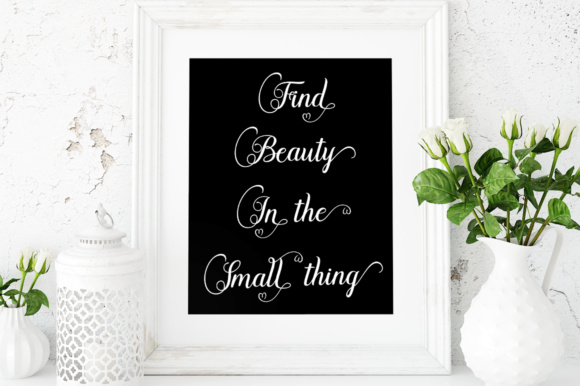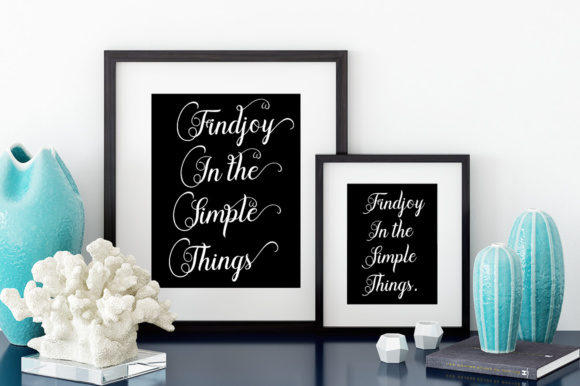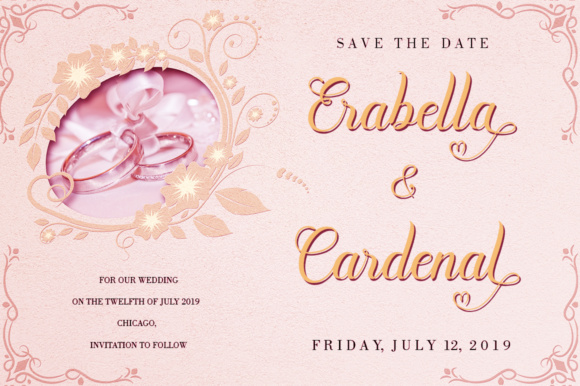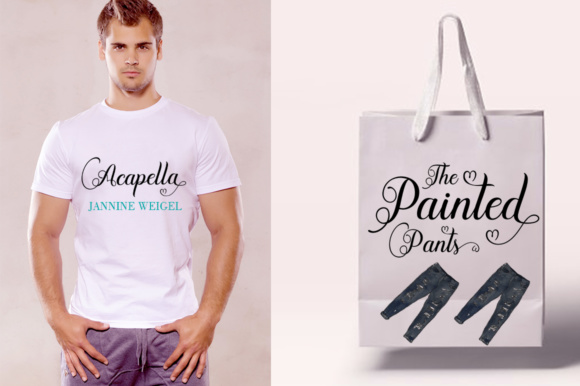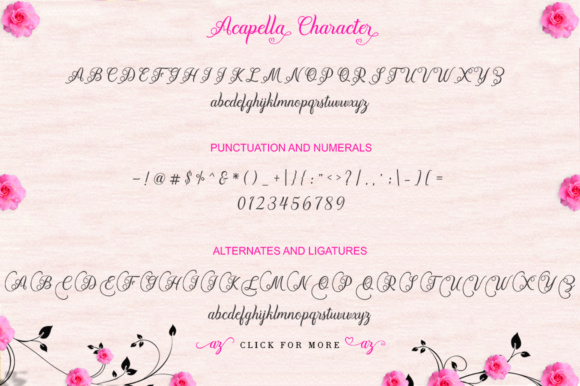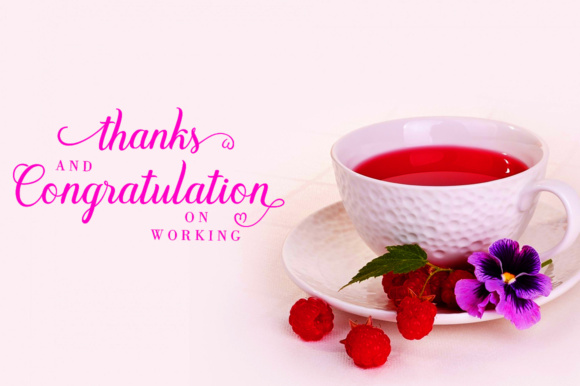
Discover the Beauty of Acapella Font: A Modern Handwritten Script
Are you a designer or crafter looking for a unique and versatile font to elevate your projects? Look no further than the Acapella Font, a modern handwritten script that is perfect for a wide range of applications. In this article, we’ll dive into the features and benefits of the Acapella Font, and explore how it can add a touch of elegance and sophistication to your work.
What is Acapella Font?
The Acapella Script is a modern, handwritten font that is designed to be both stylish and versatile. With its flowing lines and delicate curves, this font is perfect for creating beautiful and eye-catching text. Whether you’re working on a logo, a poster, or a digital project, the Acapella Font is sure to impress.
Key Features of Acapella Font
So, what sets the Acapella Font apart from other fonts? Here are just a few of its key features:
- Stunning Alternates: The Acapella Font comes packed with stunning alternates, allowing you to reuse this font over and over again and still come up with a completely unique look each time.
- Modern and Handwritten: The Acapella Script has a distinctly modern feel, while still maintaining a handwritten charm that is sure to capture the hearts of your audience.
- Versatile: This font is suitable for a large range of different projects, from logos and posters to digital projects and more.
Benefits of Using Acapella Font
So, why should you choose the Acapella Font for your next project? Here are just a few of the benefits of using this amazing font:
- Adds Elegance and Sophistication: The Acapella Font adds a touch of elegance and sophistication to any project, making it perfect for high-end brands and luxury products.
- Unique and Creative: With its stunning alternates and modern handwritten feel, the Acapella Font allows you to create unique and creative text that stands out from the crowd.
- Experiment with Alternates: Don’t be afraid to experiment with the stunning alternates that come with the Acapella Font. This is a great way to add some creativity and uniqueness to your text.
- Pair with Other Fonts: The Acapella Font pairs well with a range of other fonts, so don’t be afraid to get creative and try out different combinations.
- Use for a Range of Projects: The Acapella Font is versatile and can be used for a wide range of projects, from logos and posters to digital projects and more.